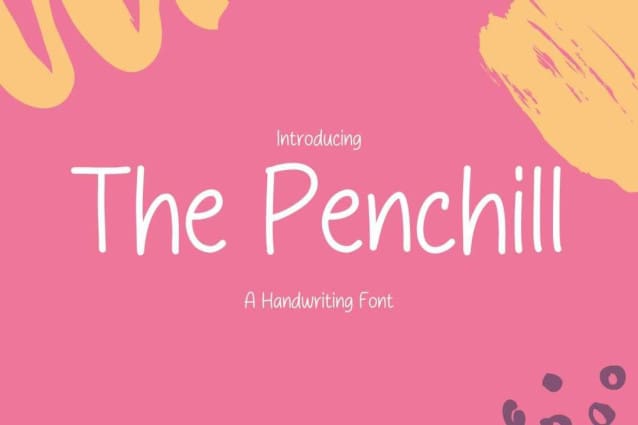
The Penchill Font
The Penchill Font is a simple and friendly handwritten font. Its natural and unique style makes it incredibly fitting to a large pool of designs. The only limit is your imagination!